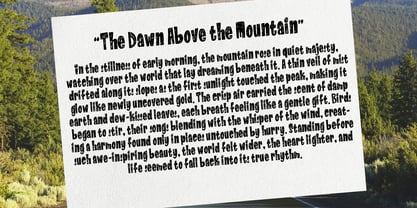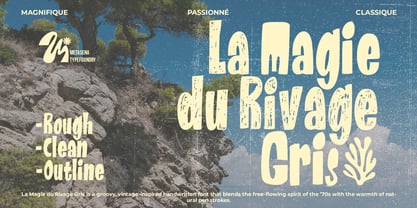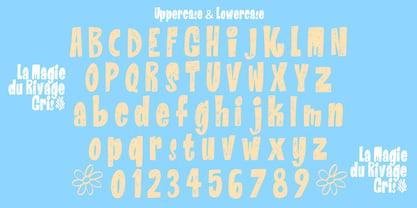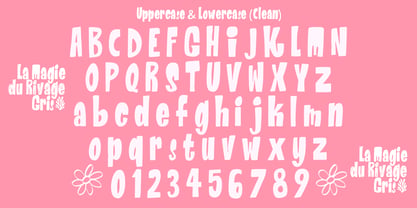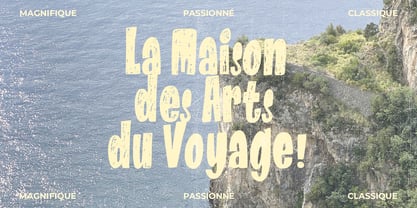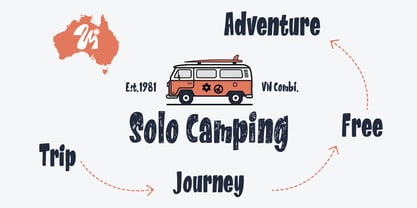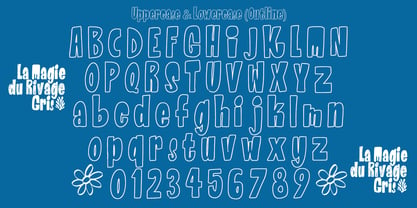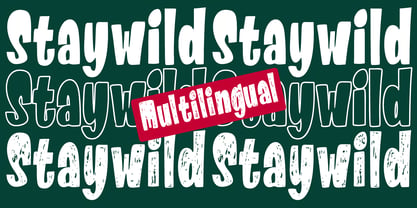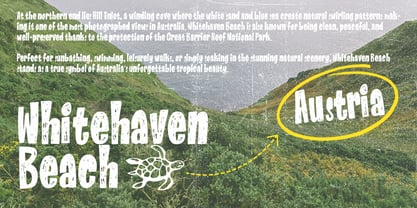
La Magie Du Rivage Gris
by Metasena Typefoundry
The La Magie Du Rivage Gris Font Family was designed by Ainal Mardiah and published by Metasena Typefoundry. La Magie Du Rivage Gris contains 3 styles and family package options. More about this family
La Magie du Rivage Gris is a handcrafted display font that blends elegance, artistic charm, and modern professionalism. Inspired by the soft gray hues of a serene shoreline, this typeface comes in three distinctive styles—Rough, Outline, and Clean—offering versatile visual options for a wide range of design needs. • Rough A textured, authentic style that highlights the natural handmade feel. Perfect for designs that seek a rustic, artistic, and expressive touch. • Outline A refined line-based style that captures a modern and stylish look while maintaining its handcrafted essence. Ideal for bold titles, creative logos, and decorative elements. • Clean The most polished and professional version of the trio. Its smooth, precise strokes convey a luxurious and timeless appearance, suitable for premium branding and minimalist design. Together, these three styles create a cohesive typographic family that offers creative flexibility and a unique visual identity. With a balance of organic beauty and high readability, La Magie du Rivage Gris is an excellent choice for logos, editorials, packaging, and any design project that seeks elegance with an artistic soul.
Designers: Ainal Mardiah
Foundry: Metasena Typefoundry
La Magie Du Rivage Gris